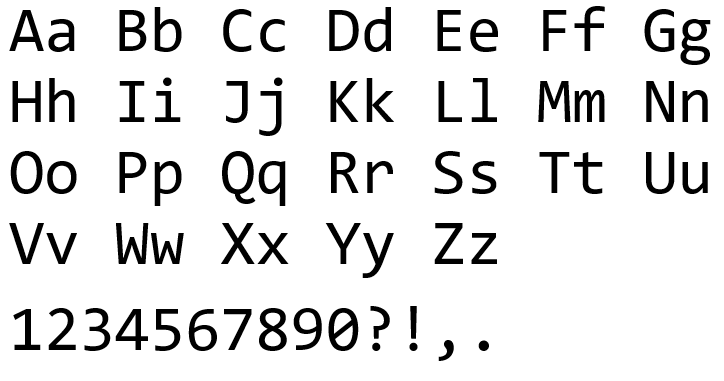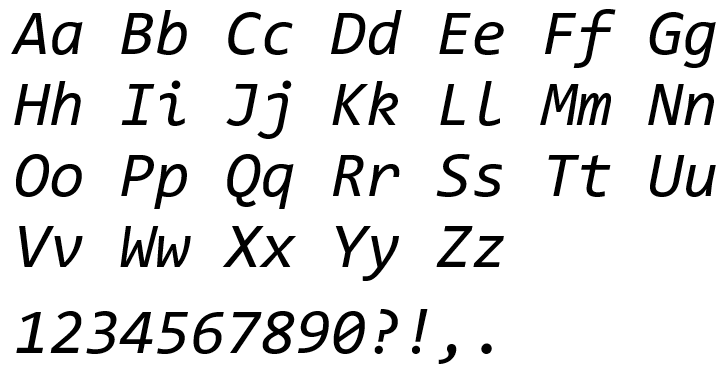
Consolas is aimed for use in programming environments and other circumstances where a monospaced font is specified. All characters have the same width, like old typewriters, making it a good choice for personal and business correspondance. The improved Windows font display allowed a design with proportions closer to normal text than traditional monospaced fonts like Courier. This allows for more comfortably reading of extended text on screen. OpenType features include hanging or lining numerals; slashed, dotted and normal zeros; and alternative shapes for a number of lowercase letters. The look of text can be tuned to personal taste by varying the number of bars and waves.
Designers | Luc(as) de Groot |